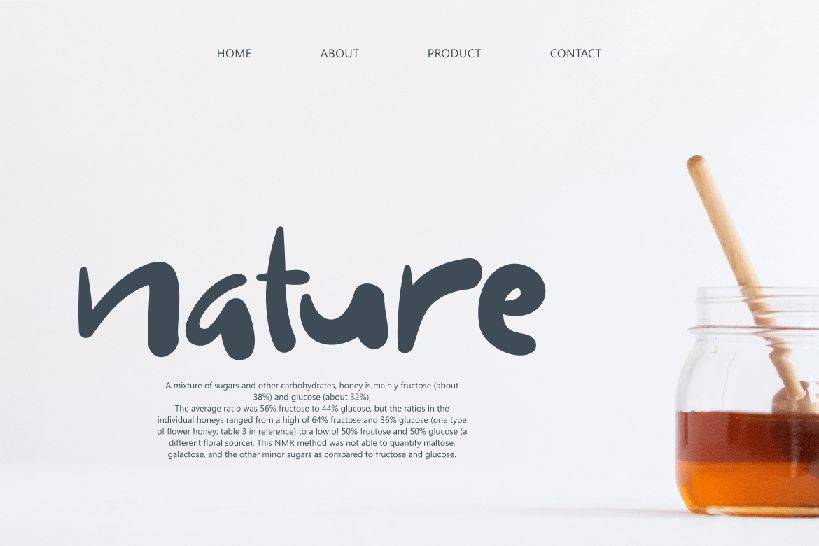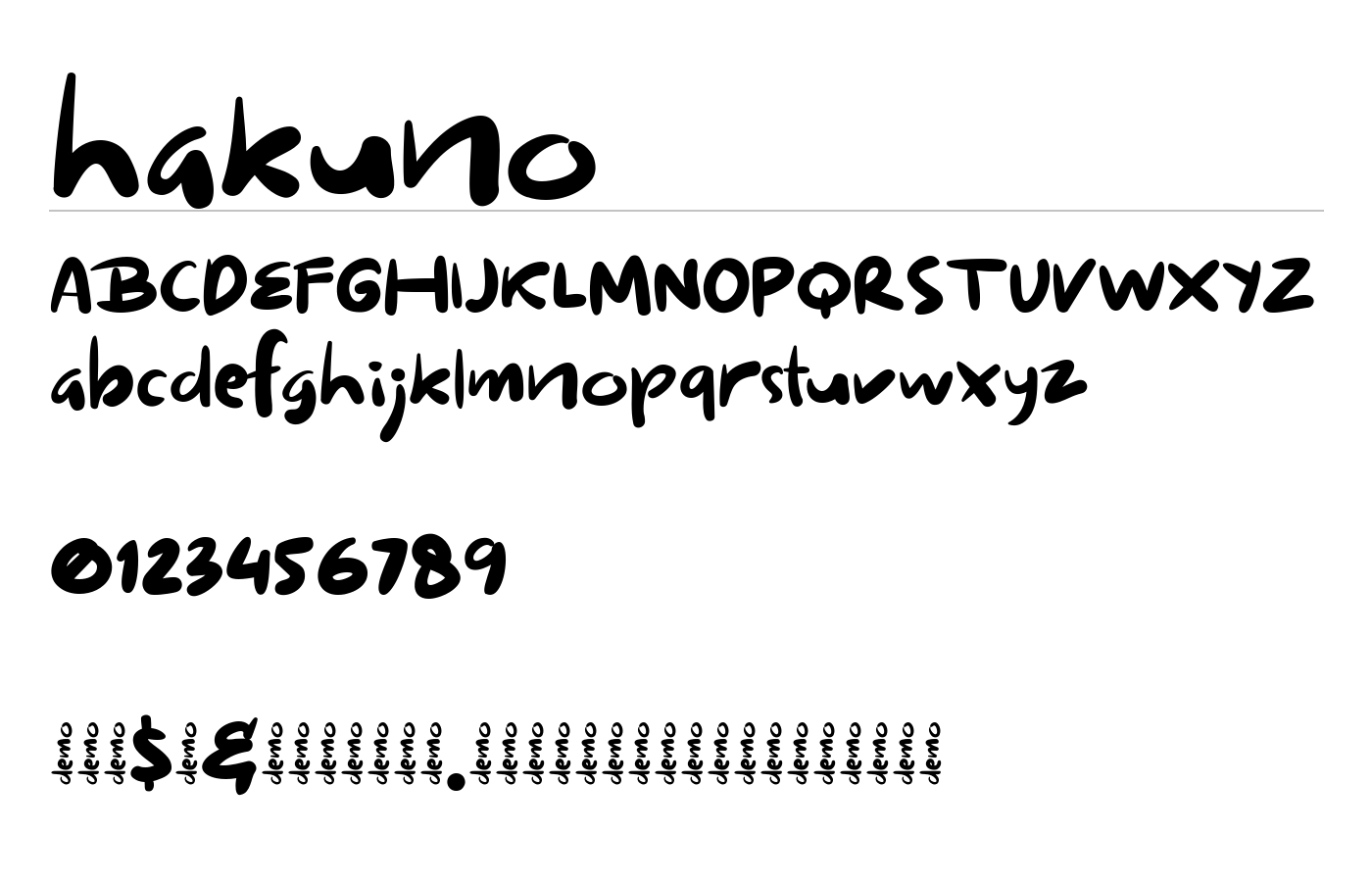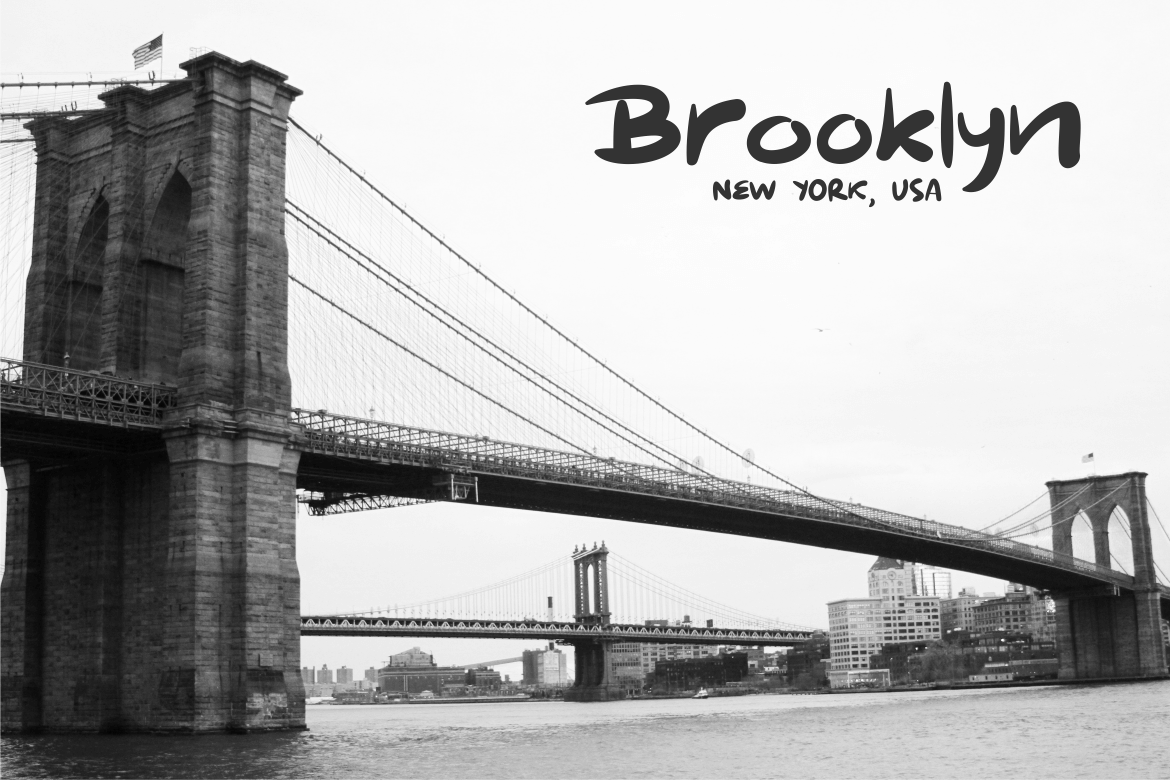
Hakuno is a playful, casual handwritten sans serif font with a bold weight and smooth, rounded strokes that create a friendly, approachable feel. Its lively character shapes and slightly uneven baseline give it an informal charm, making it ideal for creative projects, children’s materials, and brands seeking a warm, personal touch. This font works best in headlines, logos, and packaging where a fun and inviting atmosphere is desired.
Hakuno
| Font family | Hakuno |
| Designer | Sahirul Iman, alexatype |